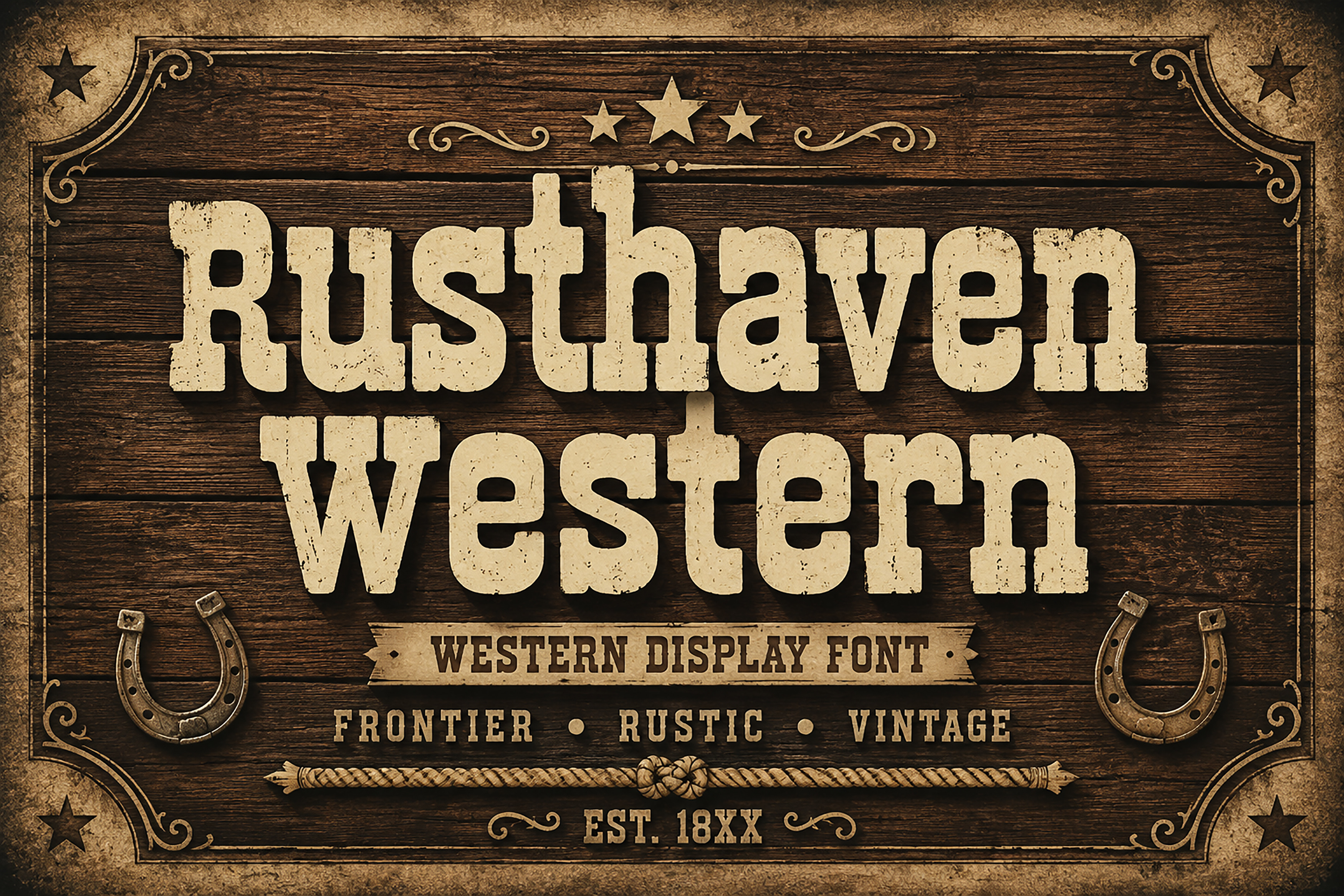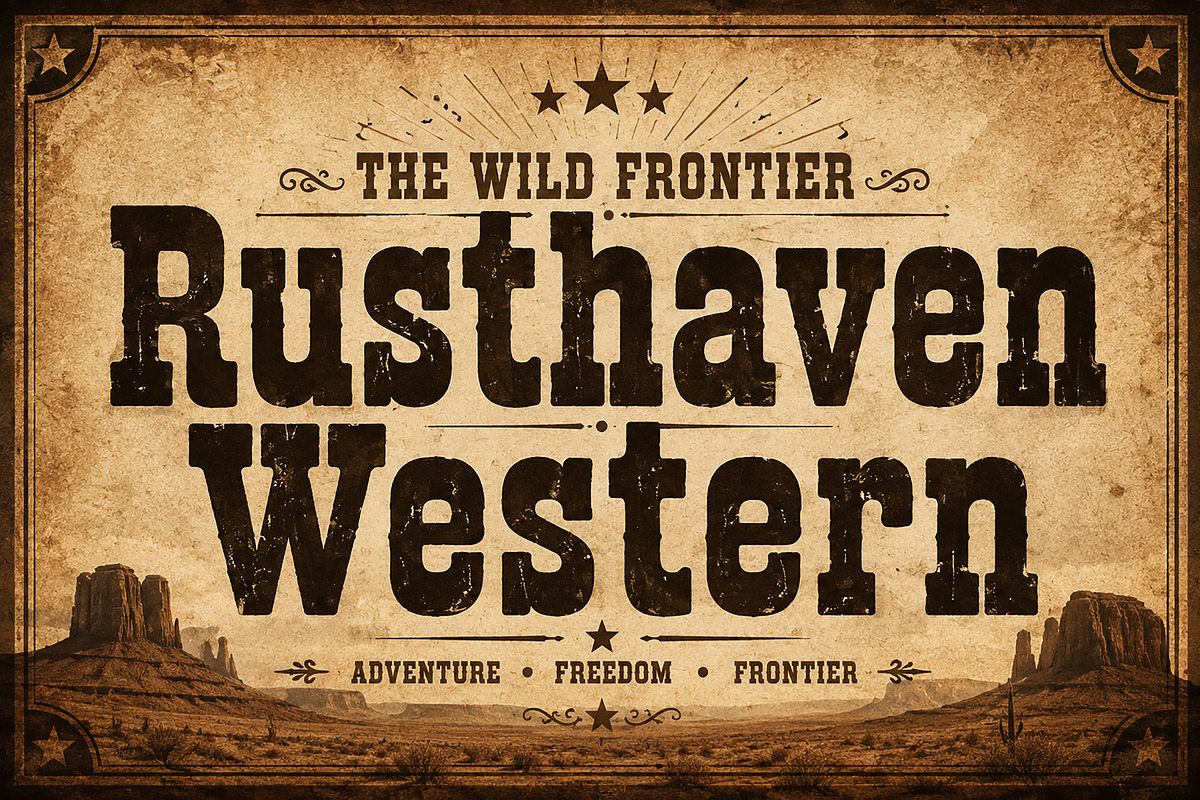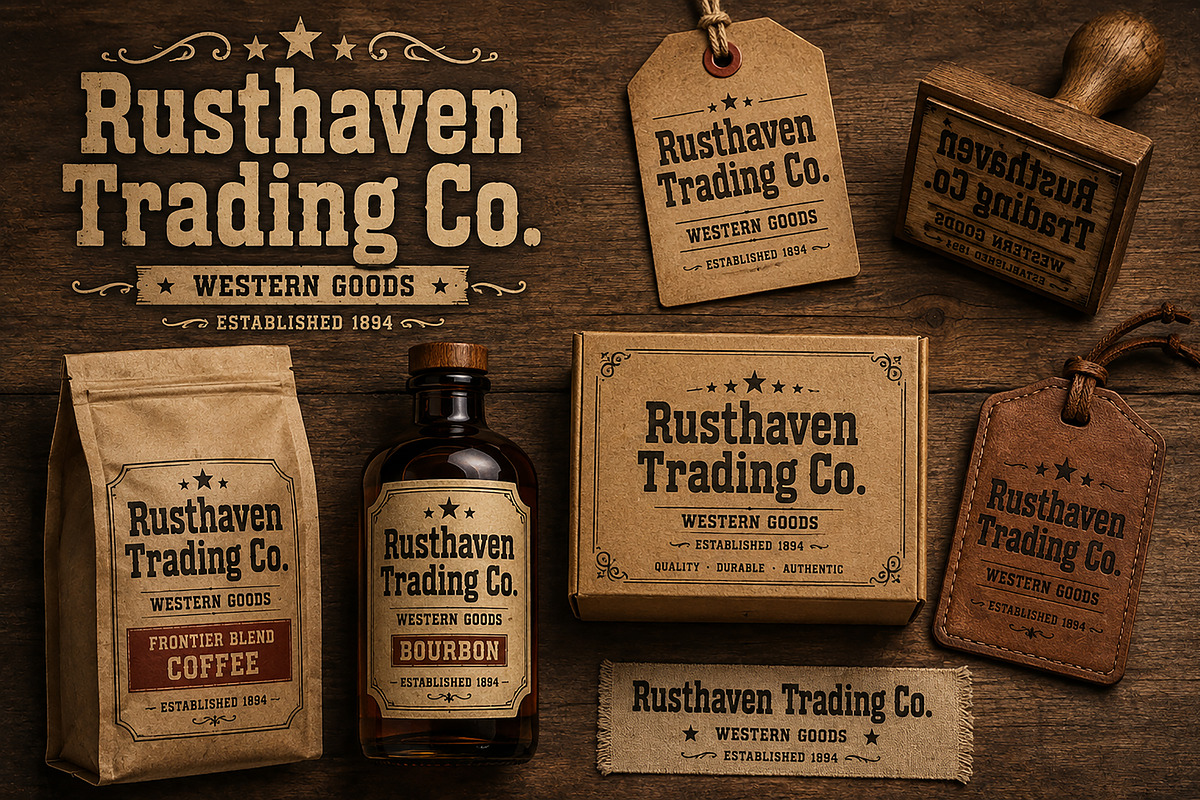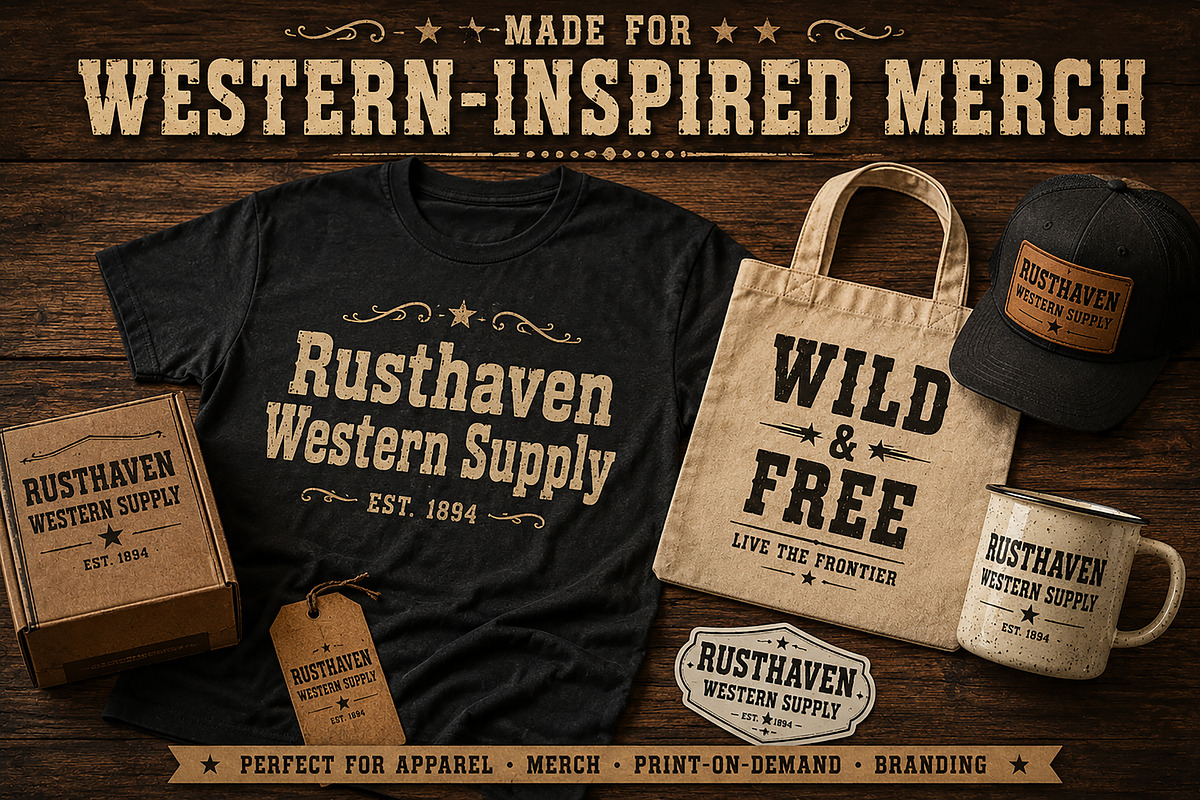
Rusthaven Western - Slab Serif Font
Rusthaven Western is a bold and rugged Western display font inspired by classic frontier signs, vintage saloon lettering, old-west branding, and distressed Americana aesthetics. Its heavy, distinctive letterforms are designed to make headlines, logos, posters, apparel, packaging, and merchandise stand out with a strong Western character.
Perfect for creating Western-inspired branding, vintage logos, cowboy-themed designs, rustic packaging, T-shirt graphics, posters, badges, labels, signs, and print-on-demand products.
Rusthaven Western works especially well when you need typography that feels bold, authentic, rugged, vintage, and attention-grabbing.
Font Name: Rusthaven Western
Style: Western / Vintage / Rustic / Display
Type: Bold Display Typeface
Bring a rugged frontier spirit to your next design with Rusthaven Western.